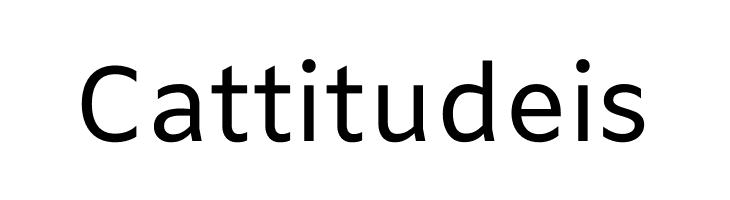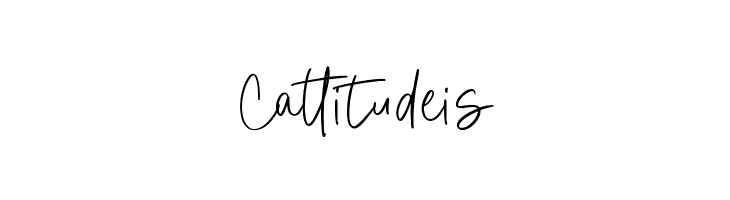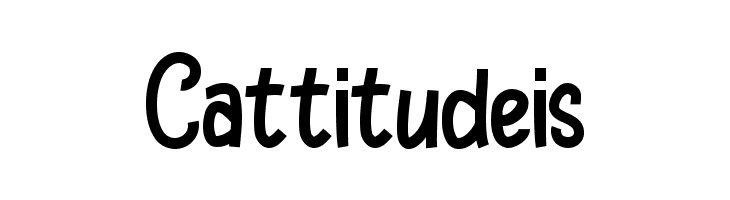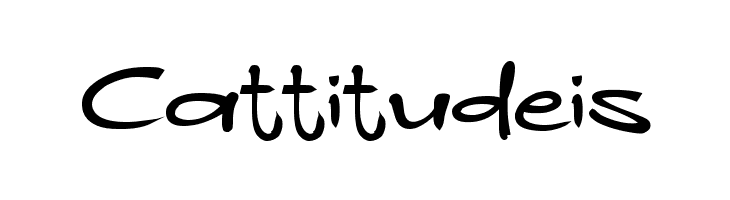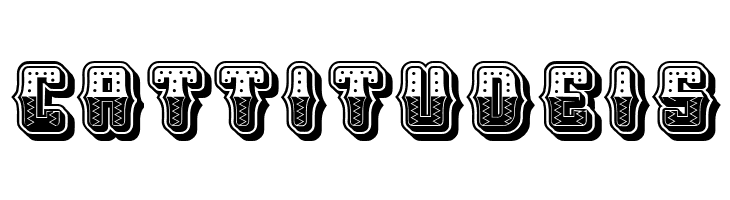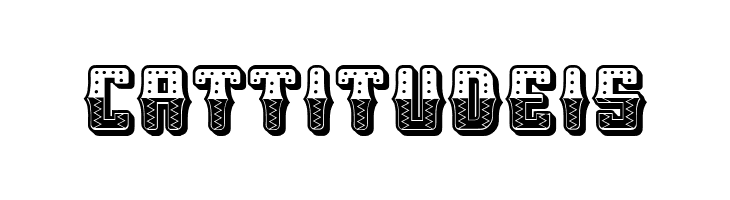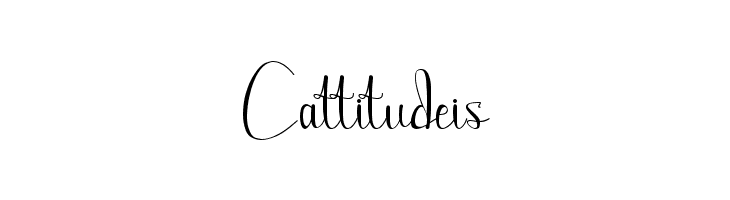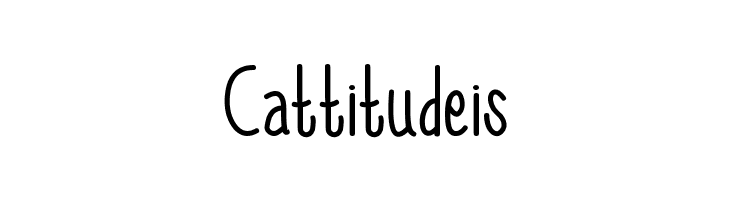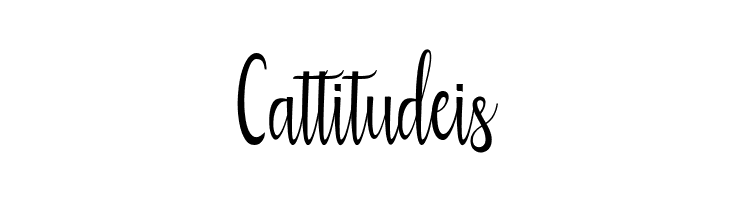
A bold, italicized handwritten font with dynamic strokes.
A bold, dynamic script font with a handwritten feel and elegant curves.
A bold, dynamic script font with a modern and flowing style.
A bold, decorative font with intricate patterns and a three-dimensional effect.
A bold, cursive script font with elegant, flowing letterforms.
A bold, flowing script font with elegant curves and dynamic strokes.
A bold, flowing script font with interconnected letters and a lively, dynamic style.
A lively and expressive handwritten font with dynamic strokes and playful loops.
A dynamic, flowing script font with an elegant, handwritten style.
A bold, gothic blackletter font with intricate, angular designs.
A clean, modern sans-serif font with excellent readability and versatility.
An elegant, flowing script font with modern curves and delicate loops.
A modern, handwritten font with elegant, fluid strokes and dynamic contrast.
A graceful and elegant script font with fluid, connected strokes.
A flowing, cursive font that mimics elegant handwriting.
A bold, handwritten script font with a playful and expressive style.
A playful, handwritten-style font with bold, dynamic characters.
A bold, flowing script font with a modern, handwritten style.
A playful, whimsical script font with flowing, cursive letters and medium contrast.
A playful, handwritten script font with bold, dynamic characters.
A bold, playful font with rounded characters and a flowing style.
A lively and expressive handwritten font with fluid strokes and dynamic energy.
A classic serif font with elegant curves and balanced proportions.
A playful, hand-drawn font with bold uppercase and cursive lowercase letters.
A geometric and abstract font with bold, angular shapes and intricate line patterns.
A bold, geometric font with strong visual impact and uniform strokes.
A dynamic and elegant script font with a flowing, handwritten style.
A playful, hand-drawn font with a whimsical and friendly style.
A stylish, cursive font with elegant, flowing strokes.
A playful and artistic handwritten font with fluid strokes.
A playful, hand-drawn font with bold, dynamic strokes and a casual style.
A playful, handwritten-style font with bold, flowing strokes.
A bold, distressed font with a vintage, handcrafted appearance.